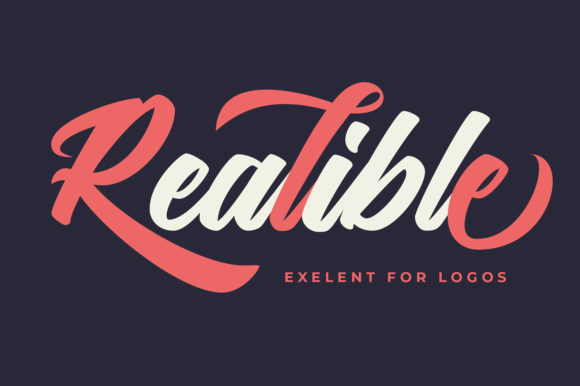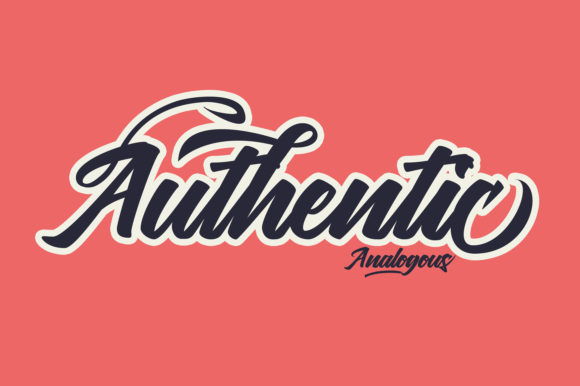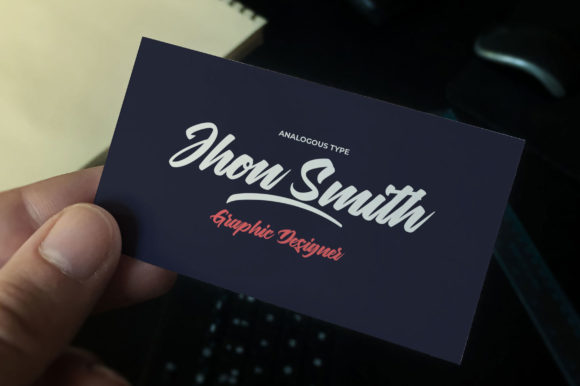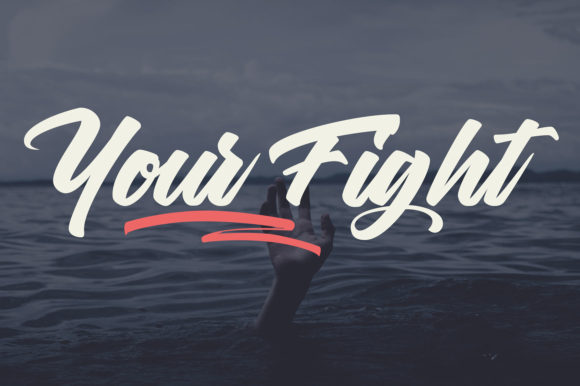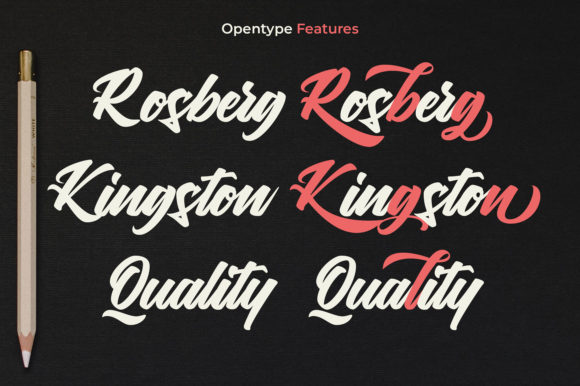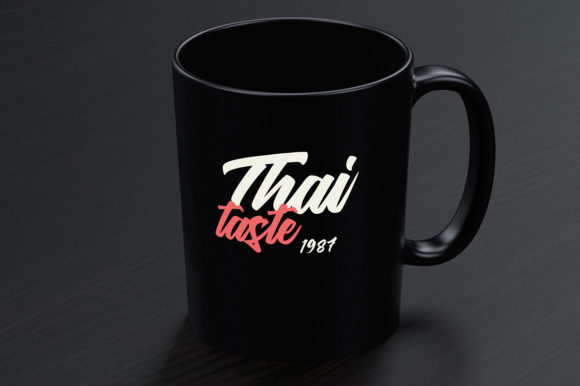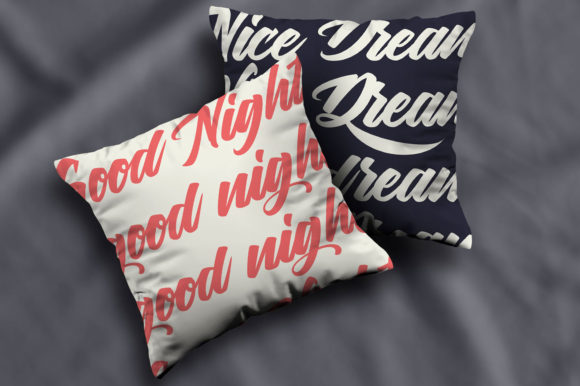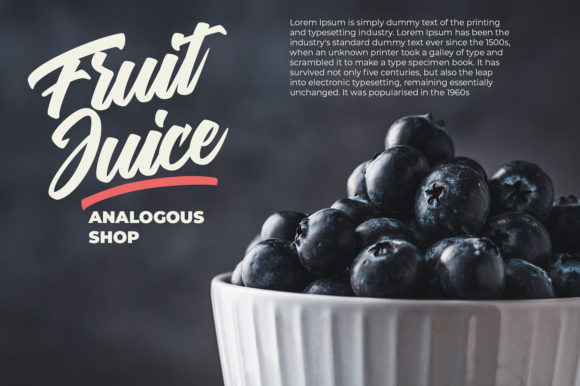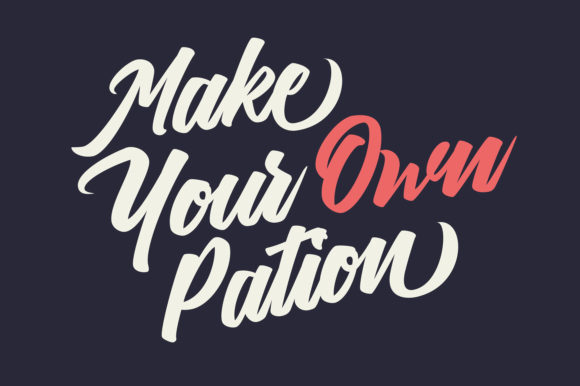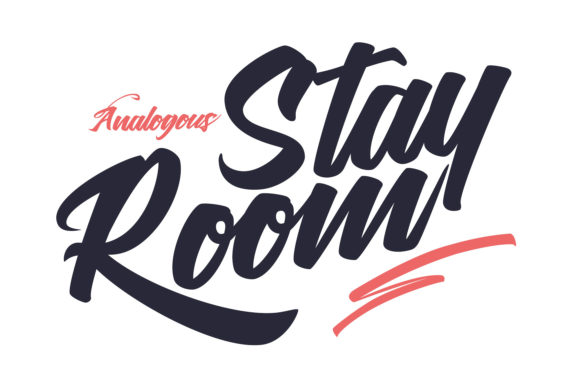
HomeScript FontsKangchen Font Script Fonts Kangchen Font FacebookXPinterestWhatsApp Kangchen Font Poster 2 Kangchen Font Poster 3 Kangchen Font Poster 4 Kangchen Font Poster 5 Kangchen Font Poster 6 Kangchen Font Poster 7 Kangchen Font Poster 8 Kangchen Font Poster 9 Kangchen Font Poster 10 Kangchen Font Poster 11 About Kangchen Font Kangchen is a stunning and dynamic script with a retro feel. Get inspired by its bold swashes! DOWNLOAD ON CREATIVE FABRICAThis font is sold and delivered by Creative Fabrica. Font Canyon may earn a commission if you buy through this link. People also explored Hatimune Font Tropical Palm Font Pillow Font Vintage Mintage Hideous Font Novaria Font Reghina Marinka Font Barney Coffee Shop Font Ornella Extra Black Font 371 0 TagsKangchen Font Previous articleRamsey FontNext articlePaula Fluiton Font LEAVE A REPLY Cancel reply Comment: Please enter your comment! Name:* Please enter your name here Email:* You have entered an incorrect email address! Please enter your email address here Website: Save my name, email, and website in this browser for the next time I comment. Personal Use Free Better Together Duo Personal Use Free Read more about this font Shnobel Personal Use Free Read more about this font Sheiloria Personal Use Free Read more about this font Planet Benson 2 Personal Use Free Read more about this font BLOG How to Install and Use Fonts on Windows, macOS, and Web Projects How to Install and Use Fonts on Windows, macOS, and Web Projects Fonts are a crucial part of design and branding. Whether you’re designing a... Best Fonts for YouTube Videos: Make Your Thumbnails Stand Out How to Cut Any Font on Cricut: Convert a Font to SVG (Free) Best Fonts for T-Shirt Design – Top 2025 Picks